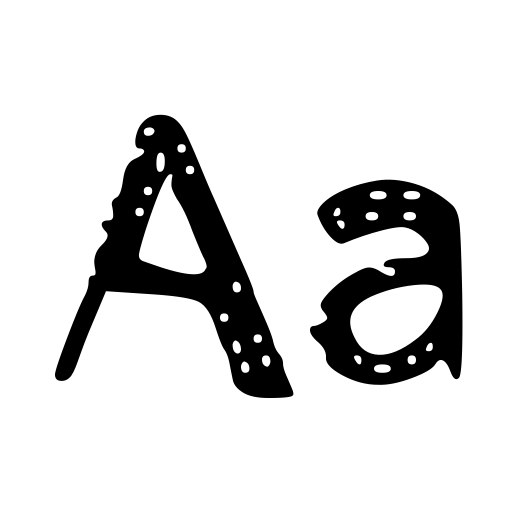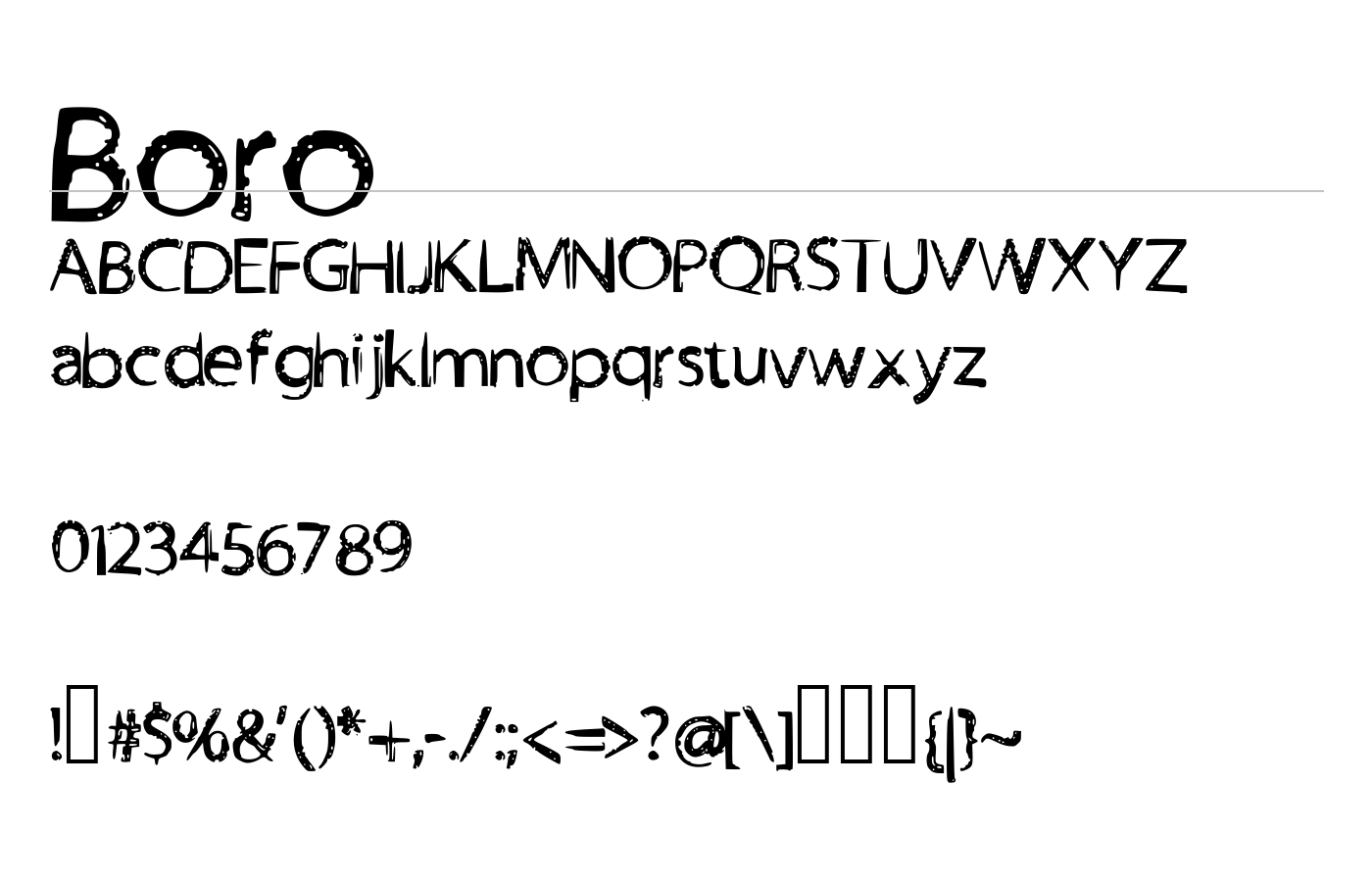
Boro is a quirky, distressed sans serif font with irregular, hand-drawn strokes that give it a playful, textured appearance. Its uneven lines and unique letterforms make it perfect for creative, informal designs that want to convey a fun and approachable personality. This font works well for posters, logos, and branding projects that need a bold, artistic vibe rather than traditional polish.
Boro Font
About Boro Font